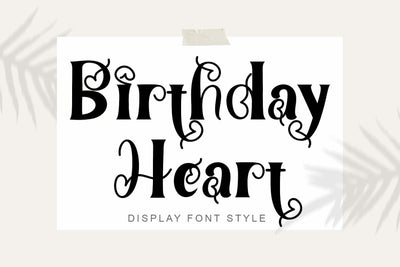
Birthday Heart
"Birthday Heart" is a unique and elegant display font. This font is equipped with uppercase, lowercase, numeral, punctuations and multilingual support. It is very suitable for wedding, photography, easter, poster, print, banner, branding, sticker, valentine, summer, spring, logo and others.